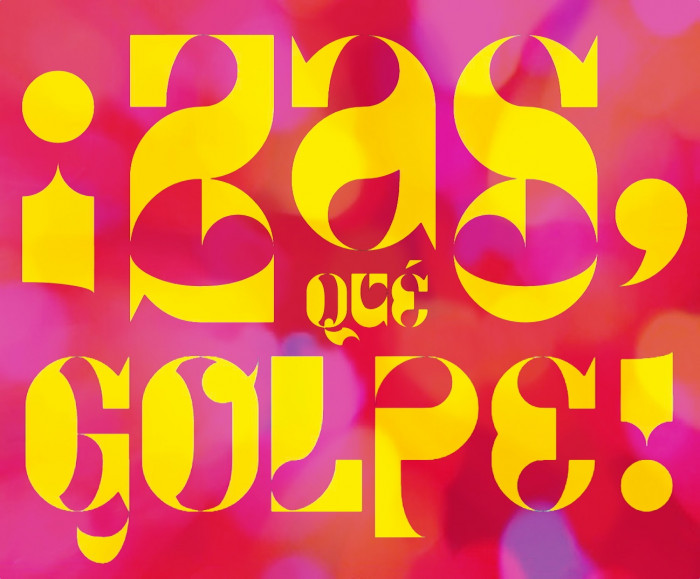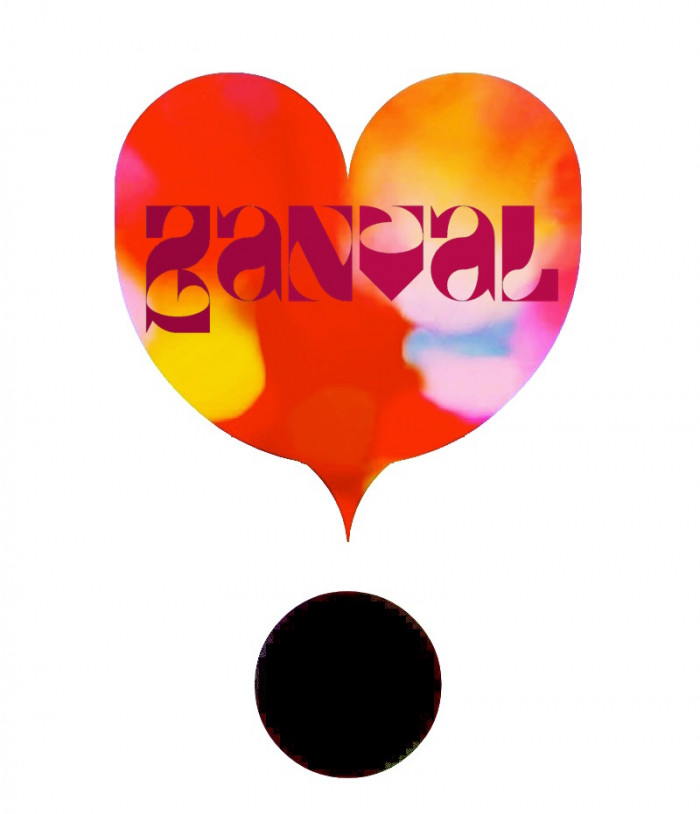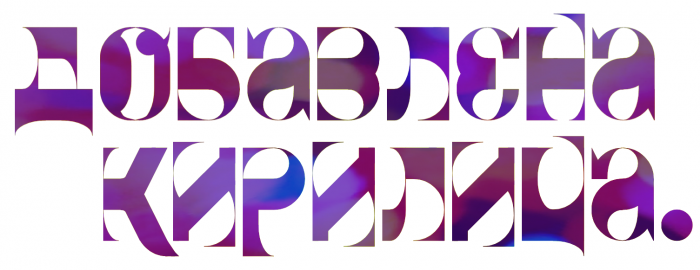
Very curly unicase font. The glyphs with swashes are on the uppercase and some alternates on the lowercase. Refreshing an old idea. Enjoy.
@Dmitriy Sychiov: Thank you very much, glad you like it! This font is one of those cases that appear when reviewing old notebooks and that give you an inevitable wink so that you bring them up to date (the original idea is from 2013!).
Very stylised, Art Nouveau-esque. It also has paper cut-out quirks to it with the juxtaposed sharp angles and all. It's a playful work! ??️ Just curious, what was the challenge that took you so long to finish this?
Great, a font with counters that look like speech bubbles have been cut out from a shaped rectangle. I agree, a playful design yet legible. 10/10
Love the wild swashes here and there~
@Micheal: Thanks for your comment and support. The font was designed in a notebook in 2013, and has stayed there (like so many others, I have a lot of these sketchbooks) until I found it in a recent revision and decided to build it in FS, adding a few more swashes.
Cyrillic added. Suggestions are welcome
These are my suggestions for cyrillic. It is really worth changing п д ц щ - they will read better, the rest is just an assumption.